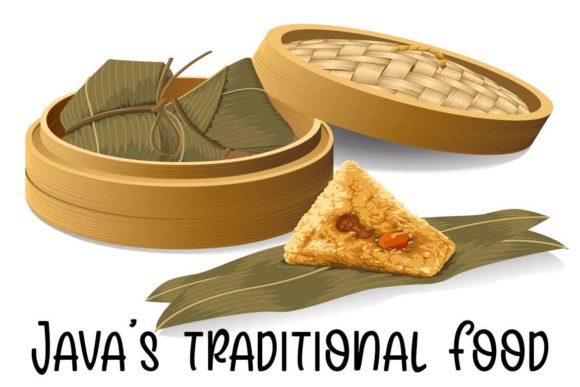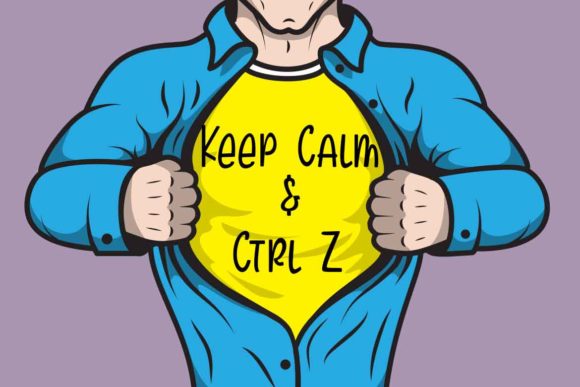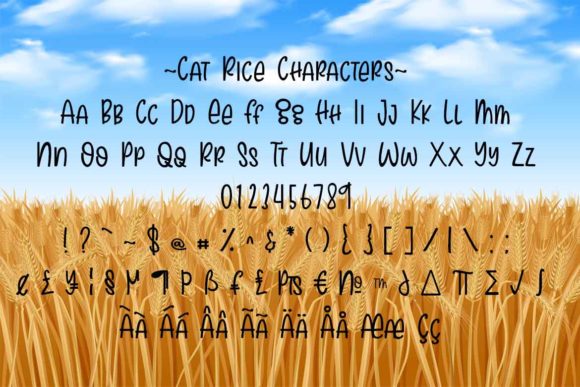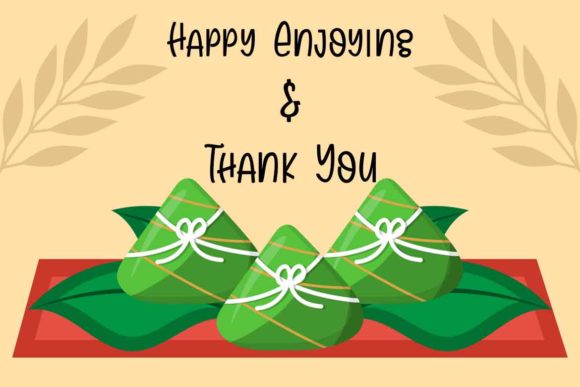
Introducing Cat Rice Font: The Sweet and Friendly Handwritten Font
Are you a designer, crafter, or DIY enthusiast looking for a font that can add a touch of warmth and personality to your projects? Look no further than Cat Rice Font, a beautiful handwritten font that is sure to capture your heart. In this article, we’ll take a closer look at what makes Cat Rice Font so special and how you can use it to take your designs to the next level.
A Sweet and Friendly Font
Cat Rice Font is a sweet and friendly handwritten font that is perfect for a wide range of design projects. Its natural and unique style makes it incredibly fitting for designs that require a personal touch. Whether you’re creating invitations, greeting cards, or social media graphics, Cat Rice Font is sure to add a touch of warmth and personality to your work.
What Makes Cat Rice Font So Special?
So, what sets Cat Rice Font apart from other fonts? Here are just a few things that make it so special:
- Unique and Handwritten Style: Cat Rice Font has a unique and handwritten style that is sure to add a personal touch to your designs. Its natural and fluid lines make it look like it was written by hand, giving it a warm and inviting feel.
- Versatile: Cat Rice Font is incredibly versatile and can be used for a wide range of design projects. Whether you’re creating a logo, a poster, or a social media graphic, Cat Rice Font is sure to fit the bill.
- Easily Readable: Despite its unique and handwritten style, Cat Rice Font is still easily readable, even at small sizes. This makes it perfect for designs that require a lot of text, such as blog posts or articles.
How to Use Cat Rice Font in Your Designs
Now that we’ve covered what makes Cat Rice Font so special, let’s talk about how you can use it in your designs. Here are a few ideas to get you started:
- Invitations and Greeting Cards: Cat Rice Font is perfect for invitations and greeting cards. Its sweet and friendly style makes it ideal for special occasions, such as weddings, birthdays, and holidays.
- Social Media Graphics: Cat Rice Font is also great for social media graphics. Its unique and handwritten style makes it stand out on social media platforms, and its easily readable text makes it perfect for creating engaging and informative graphics.
- Logos and Branding: If you’re looking for a font that can help you create a unique and memorable logo, Cat Rice Font is a great choice. Its natural and fluid lines make it perfect for creating a logo that is both modern and timeless.
The Only Limit is Your Imagination!
As we mentioned earlier, Cat Rice Font is incredibly versatile, and the only limit is your imagination! With its unique and handwritten style, you can use Cat Rice Font to create a wide range of designs, from simple and elegant to complex and intricate.
Whether you’re a designer, crafter, or DIY enthusiast, Cat Rice Font is a great addition to your font collection. Its sweet and friendly style makes it perfect for a wide range of design projects, and its easily readable text makes it perfect for designs that require a lot of text.
| Font Name | Cat Rice Font |
| Author | Supersemar Letter |
In conclusion, Cat Rice Font is a beautiful handwritten font that is sure to capture your heart. Its unique and handwritten style makes it incredibly fitting for a wide range of design projects, and its easily readable text makes it perfect for designs that require a lot of text.